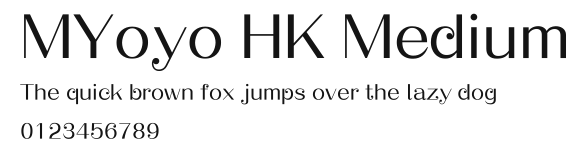
MYoyo HK Medium Preview
• Font Name: MYoyo HK Medium
• Font ID: MYoyo HK Medium
• Full Font Name: MYoyo HK Medium
• PostScript Name: MYoyoHK-Medium
• Character Count: 25313
• Manufacturer: Monotype Imaging Inc.
About MYoyo HK Medium.ttf
MYoyo HK Medium.ttf is a modern, elegant sans-serif font designed for ultimate readability and visual harmony. Perfect for branding, headlines, web design, and print materials.